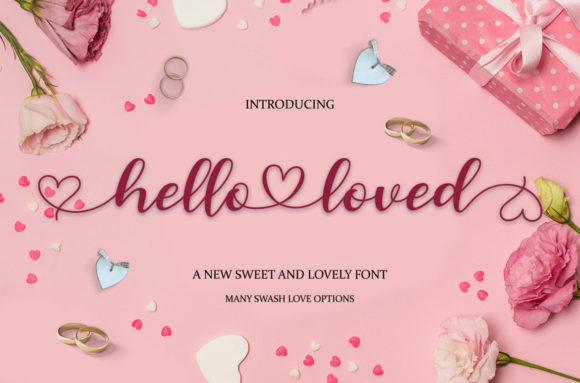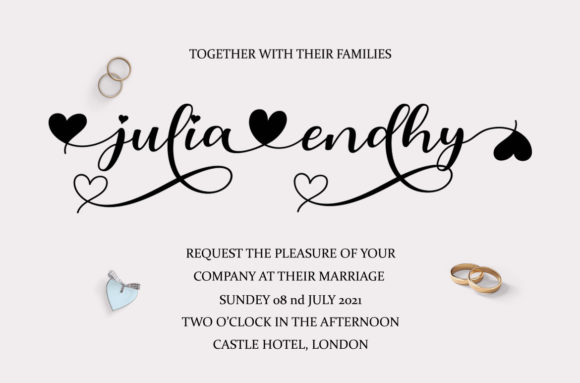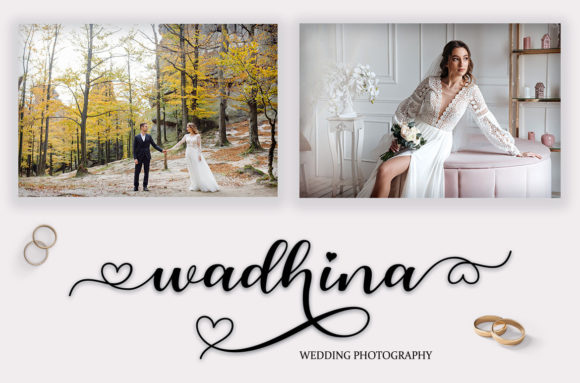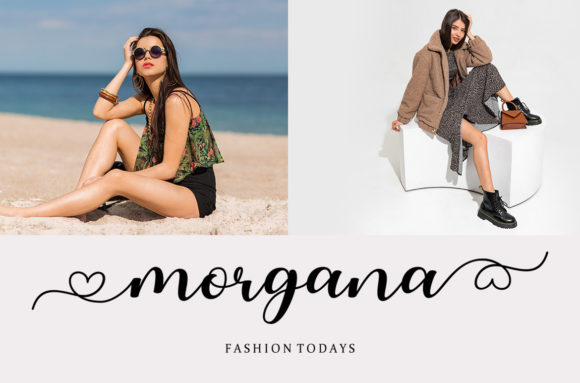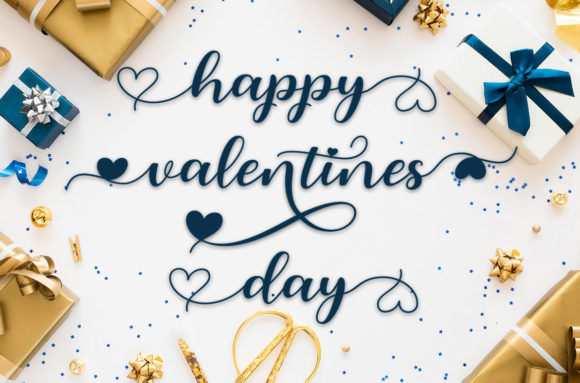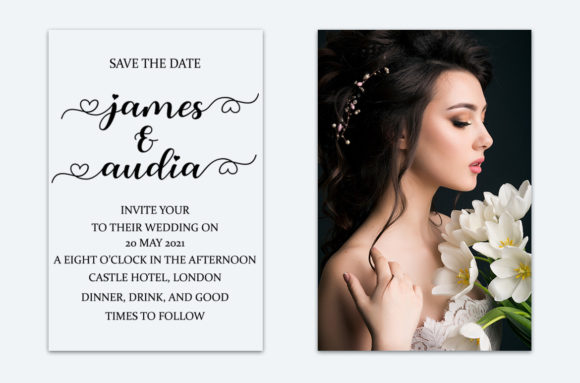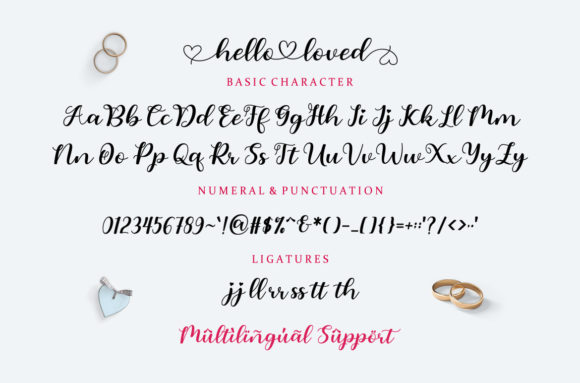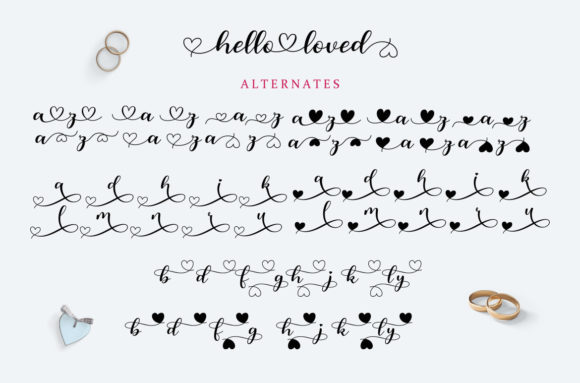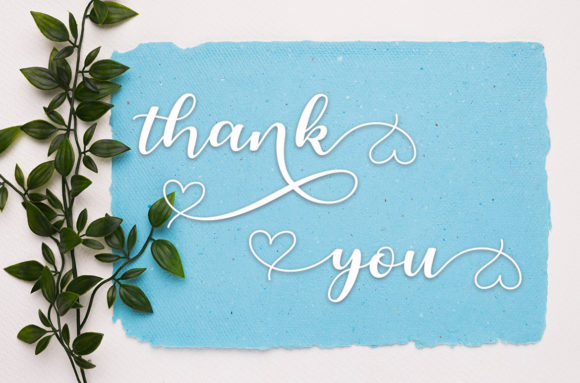
Hello Loved Font
Hello Loved is a romantic and sweet calligraphy typeface that captures the essence of elegance and charm. With its graceful and flowing characters that dance along the baseline, this font brings a touch of romance and luxury to any design project.
The exquisite curves and delicate strokes of Hello Loved give it a captivating and whimsical feel. Each letter is carefully crafted to evoke a sense of romance and beauty, making it a perfect choice for wedding invitations, love letters, greeting cards, and other projects that require a touch of elegance.
The baseline dance of the characters adds a dynamic and playful element to the font, creating a sense of movement and liveliness. This unique feature adds a special touch to your designs, making them stand out and captivating the viewer’s attention.
One of the notable features of Hello Loved is its PUA encoding, which allows easy access to a wide range of amazing glyphs and ligatures. This means you have the flexibility to create beautiful and customized typography with ease, adding a unique and personal touch to your designs.
Whether you’re designing for a romantic occasion, branding a luxury product, or creating beautiful typographic artwork, Hello Loved is a font that will add a luxurious spark to your project. Its romantic and sweet nature makes it a perfect choice for expressing love and emotions, while its elegance and sophistication make it suitable for a variety of design applications.
In summary, Hello Loved is a romantic and sweet calligraphy font with dancing baseline characters. Its luxurious and whimsical style, along with its PUA encoding for easy access to amazing glyphs and ligatures, makes it a versatile and captivating choice for a wide range of design projects. Add a touch of romance and elegance to your creations with Hello Loved and watch them come to life with beauty and charm.